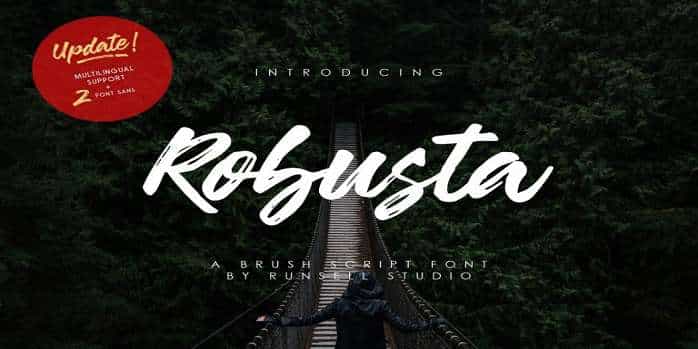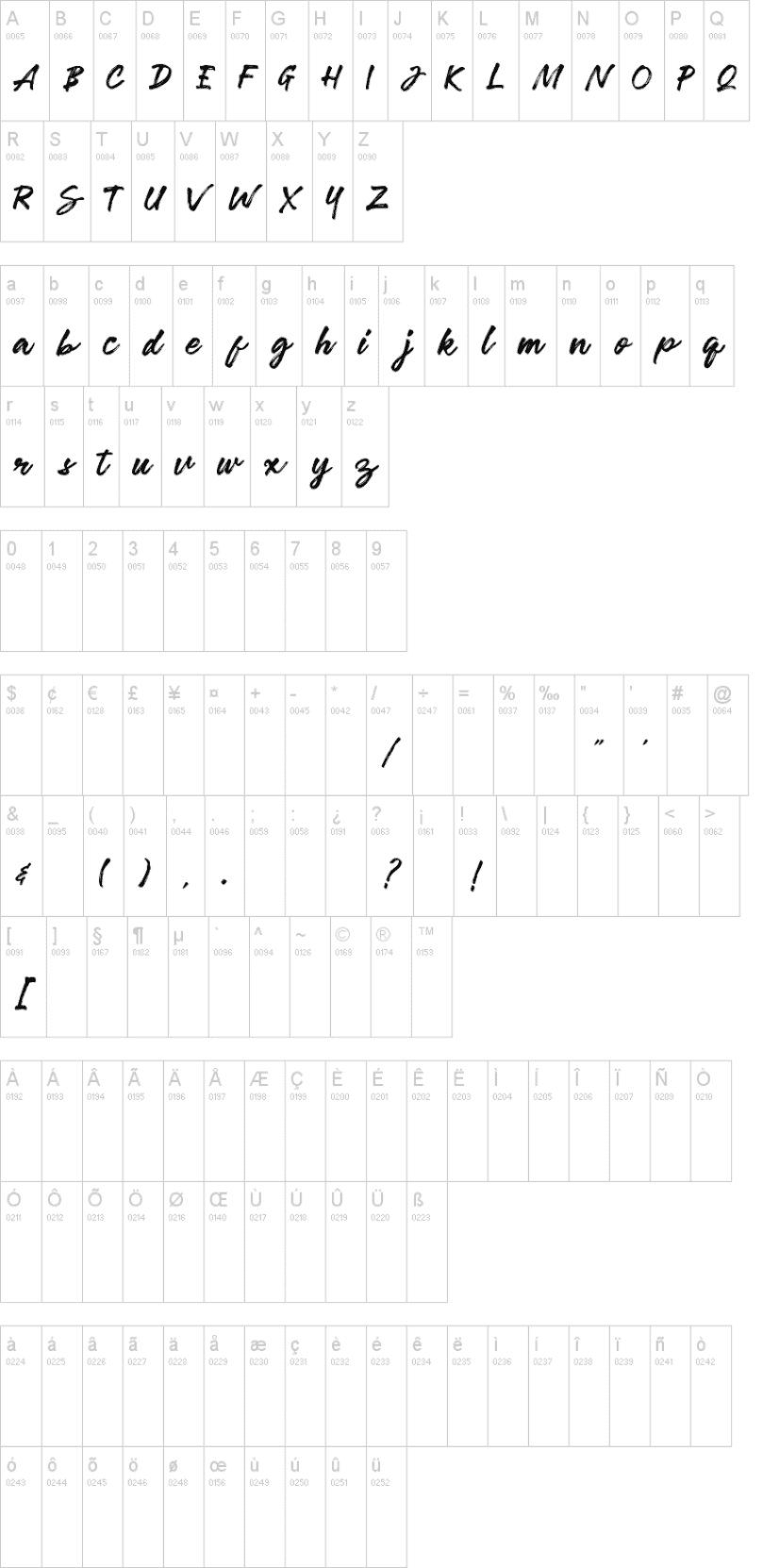
Discover Robusta Font, part of the Brush collection—a versatile and unique font perfect for adding a personal touch to your projects. Download it for free and enjoy crafting designs with style, from invitations to social media posts. This font is available exclusively for personal use, giving you the freedom to create without limits. Unlock your creativity with Robusta Font today!
The second type of coffee is Robusta which has a brush script style. This font is ideal for your design project that has the concept of fun, brave, and sporty because of the quick dry strokes and the signature style of this font. It can also be used for lettering, logotype, branding, printing template, cover album and etc.